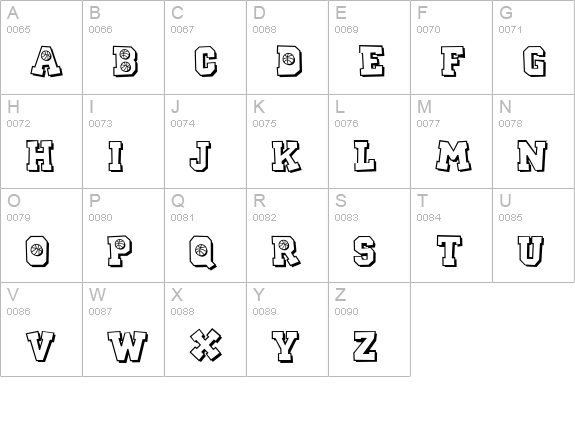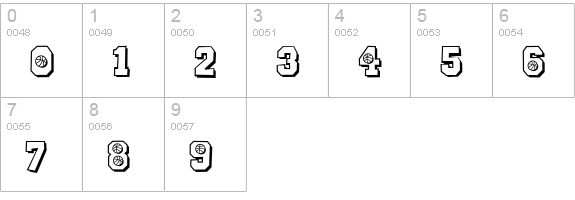
CK Sports Basketball Font Details
The CK Sports Basketball font is a dynamic and eye-catching typeface that perfectly captures the energy and excitement of the basketball court. With its bold and sporty design, this font is ideal for creating posters, flyers, and other designs related to basketball and sports in general. The CK Sports Basketball font is free to download at FontsMarket.com, making it easily accessible to designers and enthusiasts looking to add a touch of athletic flair to their projects. Whether you're designing for a basketball team, a sports event, or simply want to inject some energy into your work, the CK Sports Basketball font is a fantastic choice that is sure to make a statement. Bold, powerful, and completely free – download the CK Sports Basketball font today and take your designs to the next level!